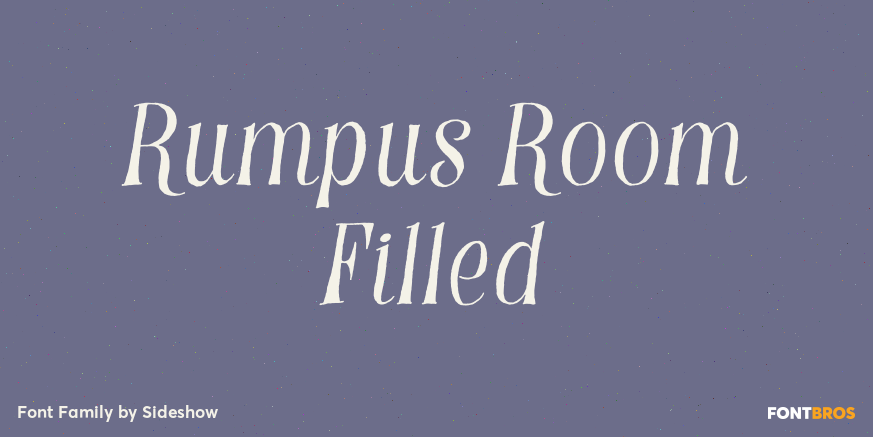
Rumpus Room Filled
Rumpus Room is now filled and it\’s more versatile than ever! Use this casual playful handwritten font anytime you\’re aiming for some serious leisure and we mean leisure! Kick back, put your feed on the Naugahyde lounge chair ottoman and enjoy a little…